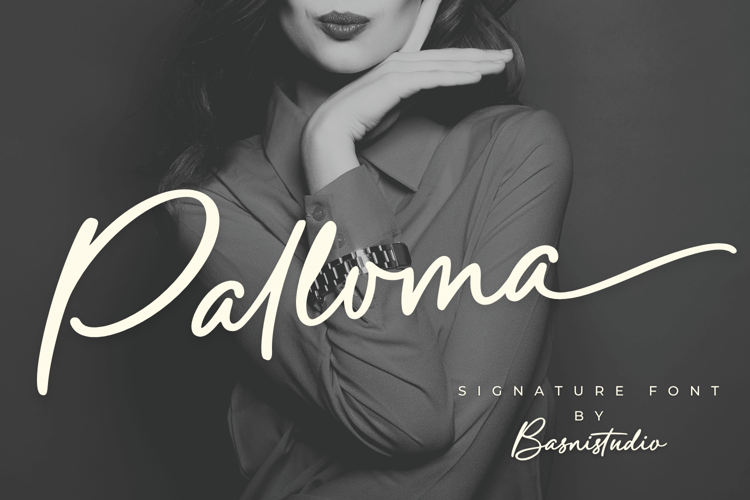
Palloma Signature Font
Introducing Palloma a Signature Font that adds a elegant, versatile touch to everything from branding and social media to invitations and packaging.